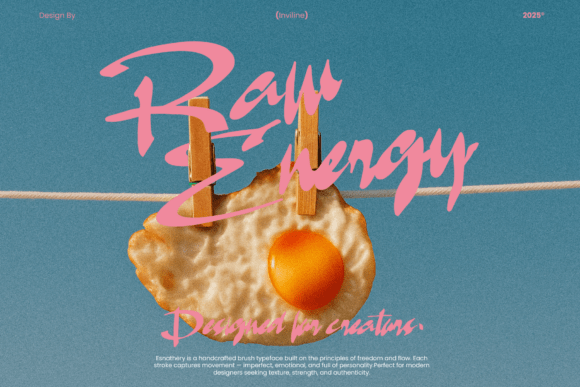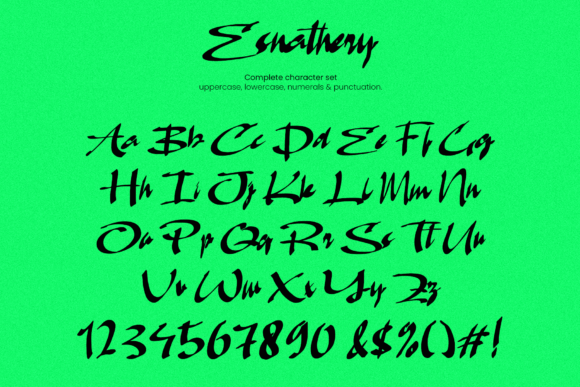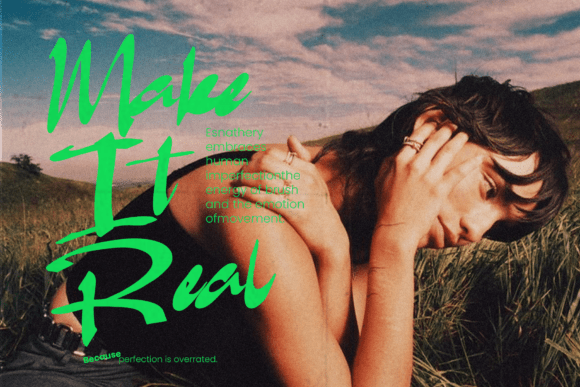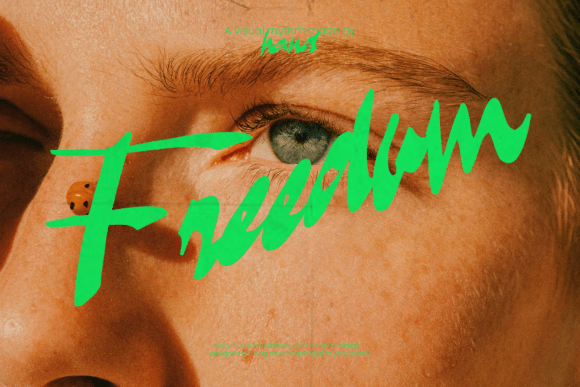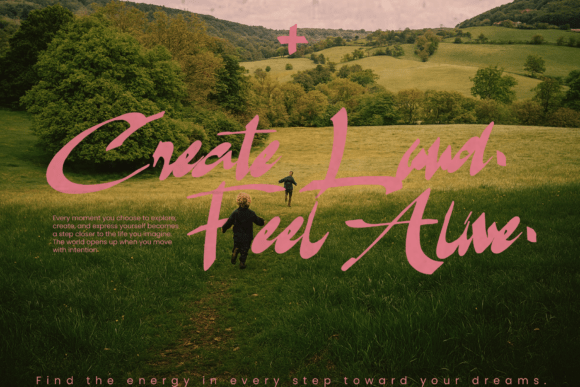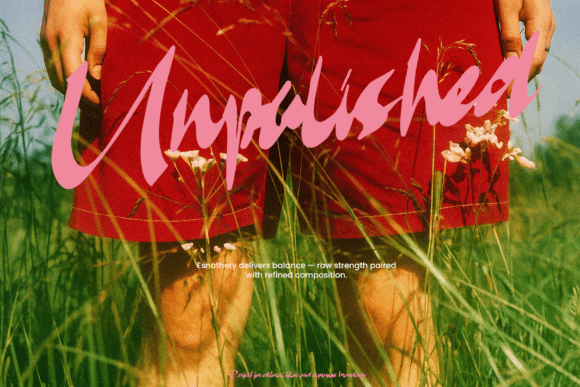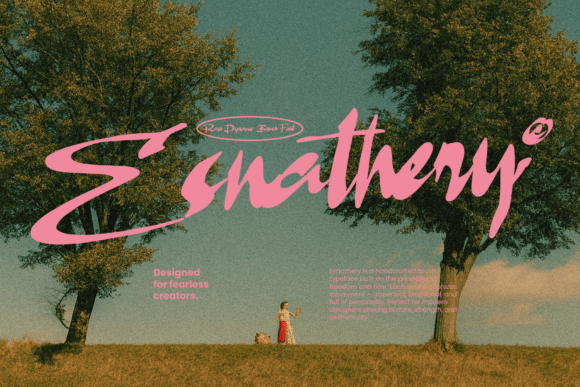
Introducing Esnathery Font: The Raw and Dynamic Brush Script for Bold Creators
In the world of typography, few fonts manage to capture the essence of motion, emotion, and authenticity as effectively as Esnathery. This raw and dynamic brush script font is designed for creators who refuse to be ordinary, offering a unique blend of expressive texture and handcrafted flow that brings a touch of rebelliousness to any visual composition.
Unleash Your Creativity with Esnathery
Esnathery is more than just a font – it’s a statement. It’s perfect for designers, musicians, and storytellers who want to infuse their work with a sense of energy and movement. Whether you’re crafting a bold brand identity, designing a magazine title, creating a poster, or developing social media graphics, Esnathery is the perfect companion. Its unique, handcrafted feel turns imperfection into strength, giving your work a distinctive edge that sets it apart from the crowd.
The Characteristics of Esnathery
So, what makes Esnathery stand out? Here are a few key characteristics that define this dynamic brush script font:
• Expressive Texture: Esnathery boasts a rich, textured quality that mimics the natural flow of brushstrokes. This texture adds depth and authenticity to your designs, making them feel more organic and engaging.
• Handcrafted Flow: Each letter in Esnathery is carefully crafted to convey a sense of movement and fluidity. The font’s handcrafted feel ensures that every stroke is unique, contributing to a more dynamic and interesting visual composition.
• Emphasis on Emotion: Esnathery is designed to evoke emotion. Its bold, sweeping strokes can convey a range of feelings, from passion and excitement to nostalgia and introspection. This emotional resonance makes it a powerful tool for creators who want to connect with their audience on a deeper level.
Who is Esnathery for?
Esnathery is ideal for a wide range of creators, including:
• Designers: Graphic designers, branding specialists, and visual artists will love Esnathery for its versatility and expressiveness. Use it to create stunning logos, posters, and marketing materials that demand attention.
• Musicians: Musicians and music producers can use Esnathery to create bold, eye-catching album art, posters, and social media graphics that reflect their unique style and energy.
• Storytellers: Writers, filmmakers, and content creators can use Esnathery to add a touch of personality to their work. Whether you’re designing a book cover, movie poster, or blog header, Esnathery can help you convey your message with style and impact.
How to Use Esnathery Effectively
To get the most out of Esnathery, consider the following tips:
• Mix and Match: Combine Esnathery with other fonts to create a unique visual hierarchy. Its bold, expressive strokes work well with simpler sans-serifs or elegant serifs.
• Play with Color: Esnathery’s textured quality looks stunning in bold, vibrant colors. Experiment with different color combinations to find the perfect match for your brand or design.
• Emphasize Imperfection: Don’t be afraid to let Esnathery’s natural imperfections shine through. The font’s handcrafted feel is part of its charm, so resist the urge to over-edit or perfect every stroke.
Esnathery is more than just a font – it’s a creative partner that can help you bring your boldest ideas to life. With its raw, dynamic strokes and handcrafted flow, this brush script font is perfect for designers, musicians, and storytellers who want to add a touch of energy and emotion to their work. So why settle for ordinary typography when you can make a statement with Esnathery?